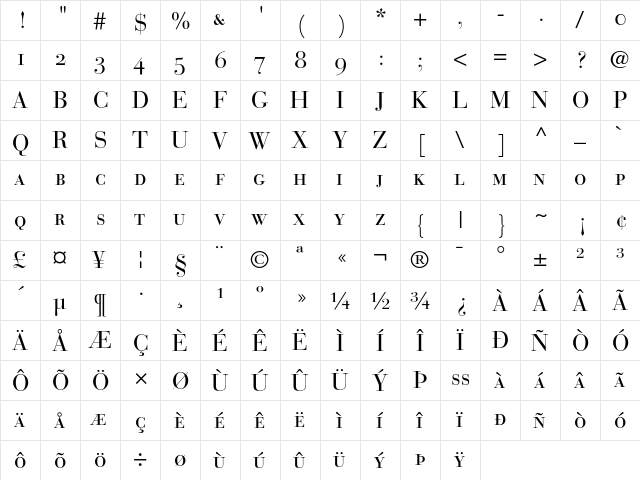
Bauer Bodoni Roman Small Caps & Oldstyle Figures
Design Context for Bauer Bodoni Typeface
Bauer Bodoni carries the refined structure of traditional serif typography, with bracketed terminals and considered proportions that communicate credibility and craft.
Pro Tip: Use Bauer Bodoni for editorial body copy and considered headline work. Pair with a neutral sans for UI elements or captions to create a classic hierarchy.